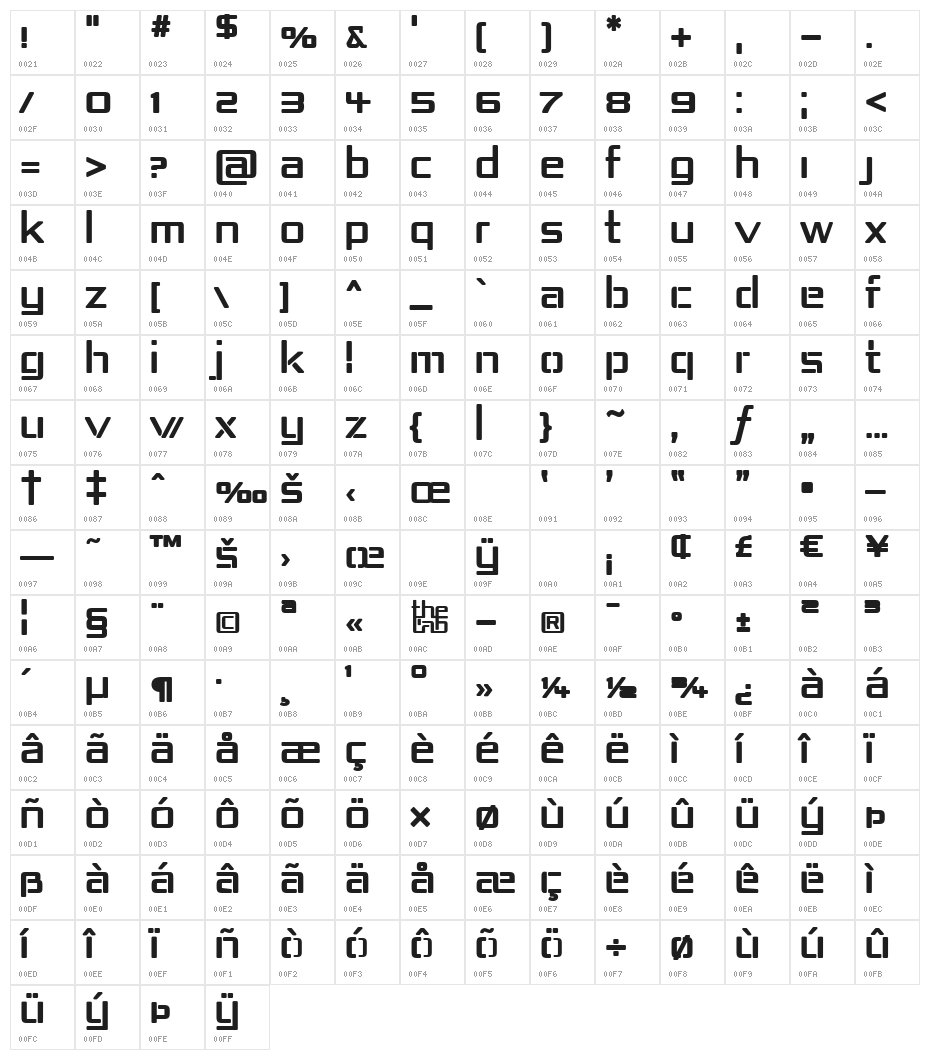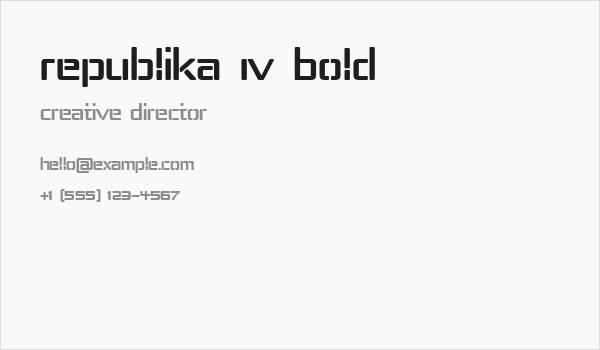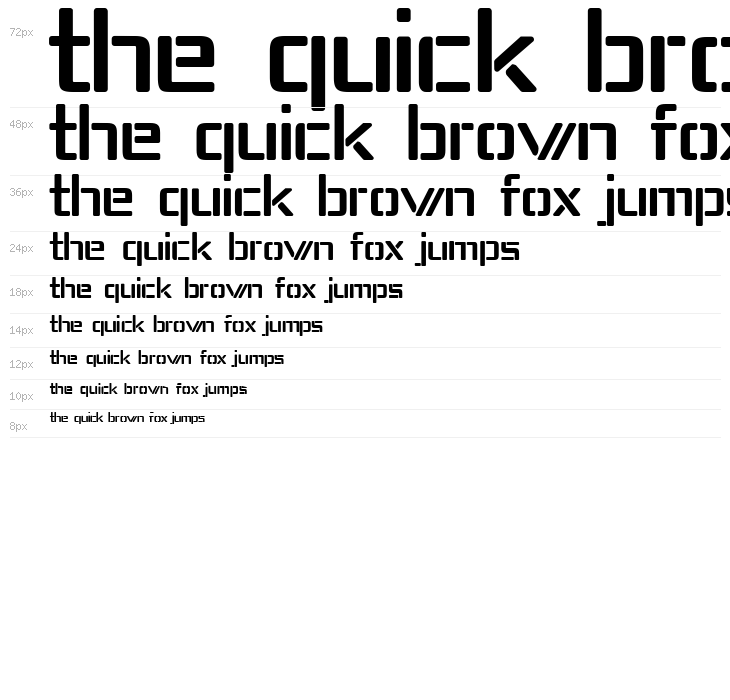
Republika IV Bold Font
Republika IV Bold Description
This font features a bold and modern design with a geometric and slightly futuristic aesthetic. The characters are constructed with uniform stroke widths, giving them a clean and structured appearance. The edges are slightly rounded, which softens the overall look while maintaining a strong presence. The uppercase and lowercase letters are consistent in style, with a focus on readability and impact. The numerals and special characters are designed to match the boldness and clarity of the alphabet, making this font versatile for various applications.
Use CaseHeadlines, Logos, Digital interfaces
Proposed ProjectsIdeal for technology branding, modern advertising, digital interfaces, and futuristic-themed projects.